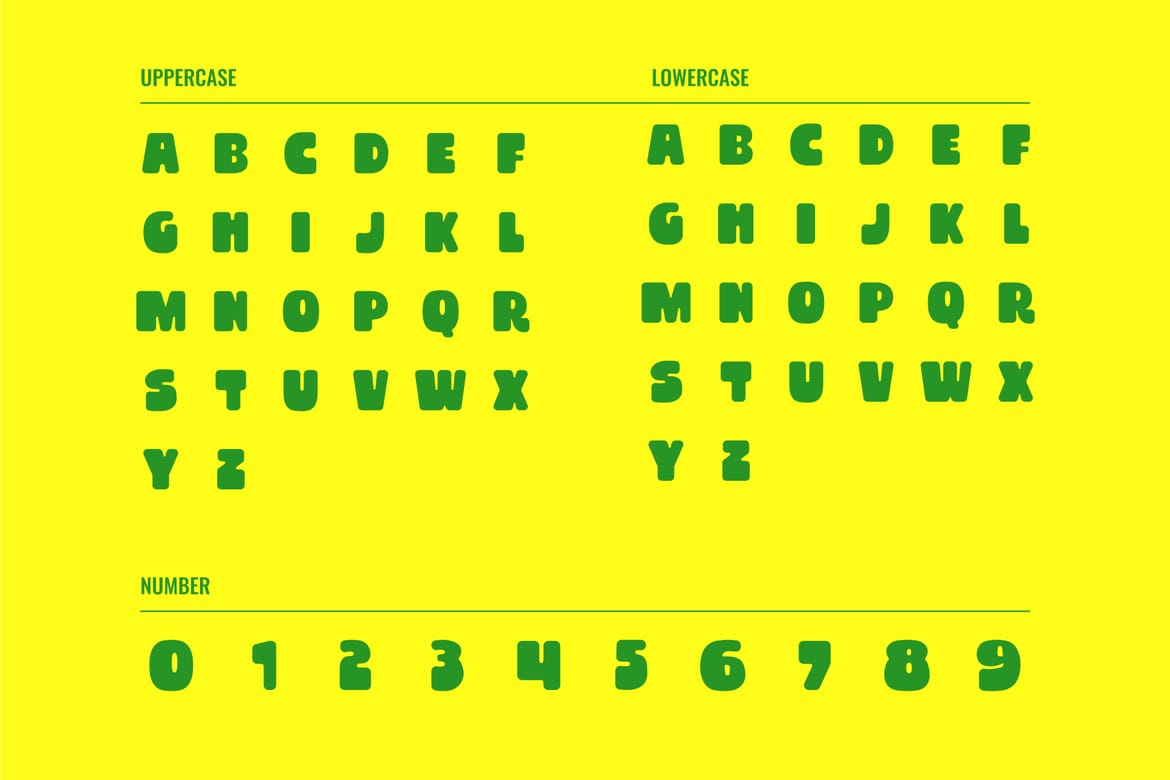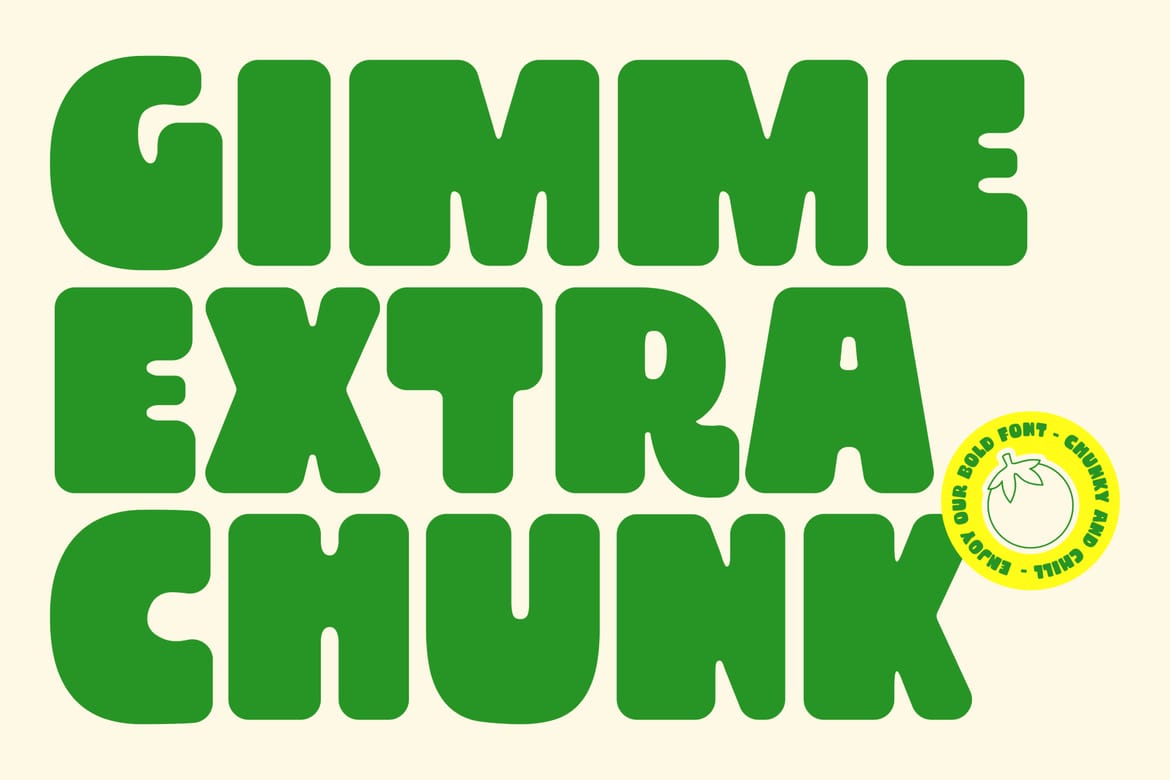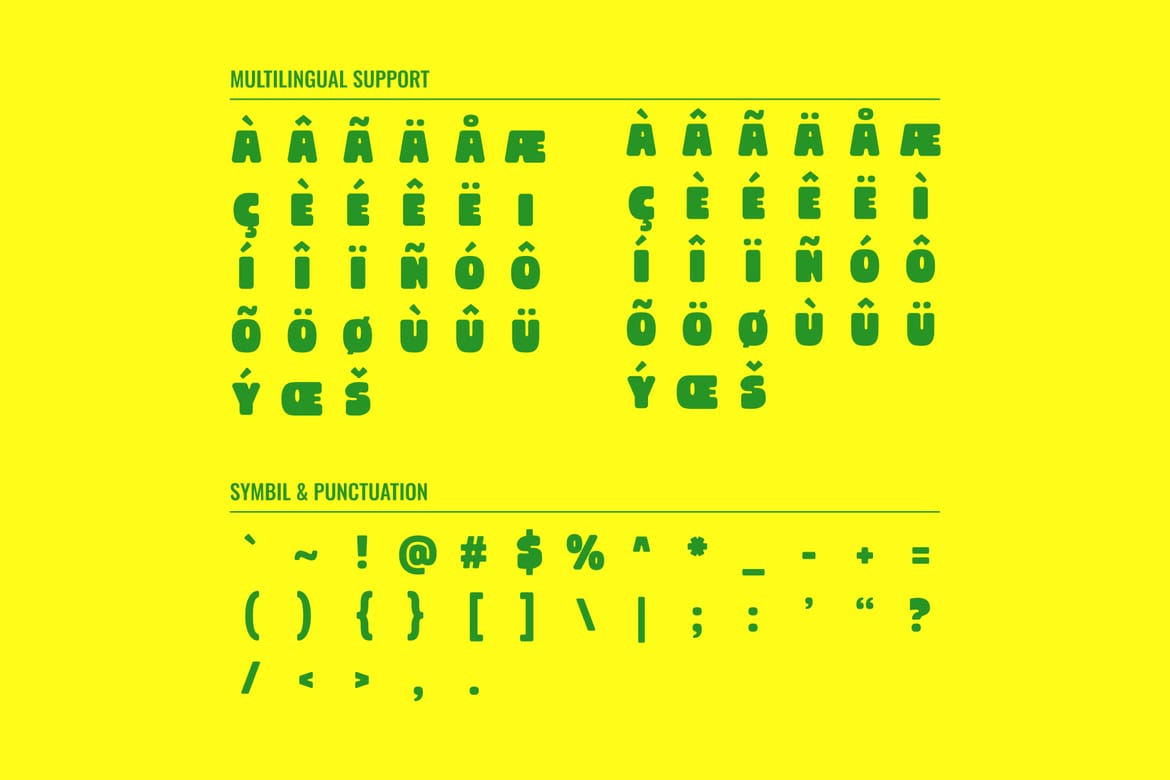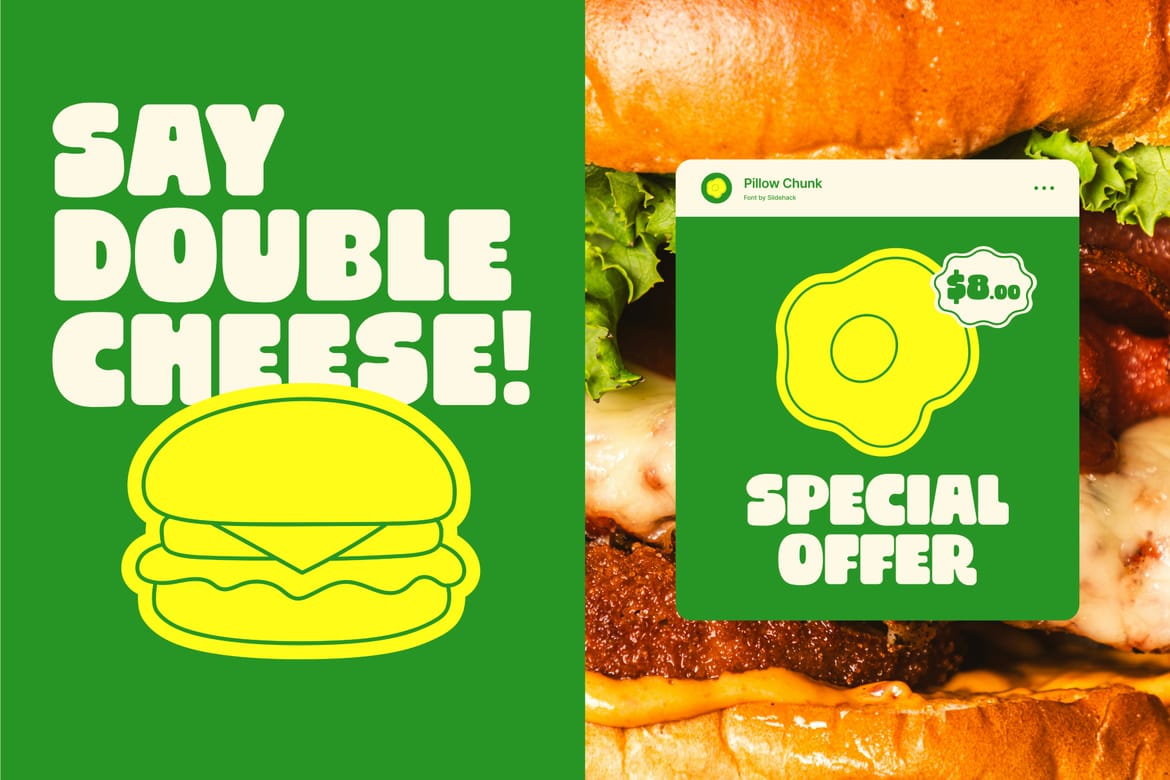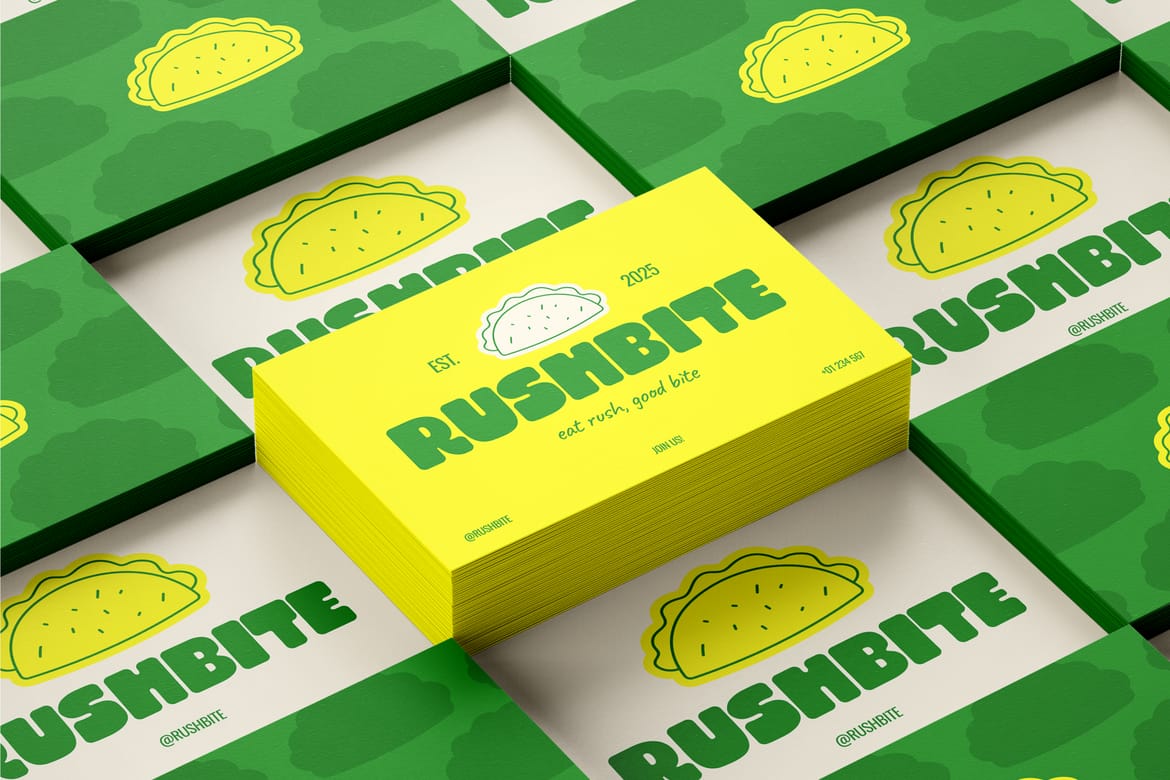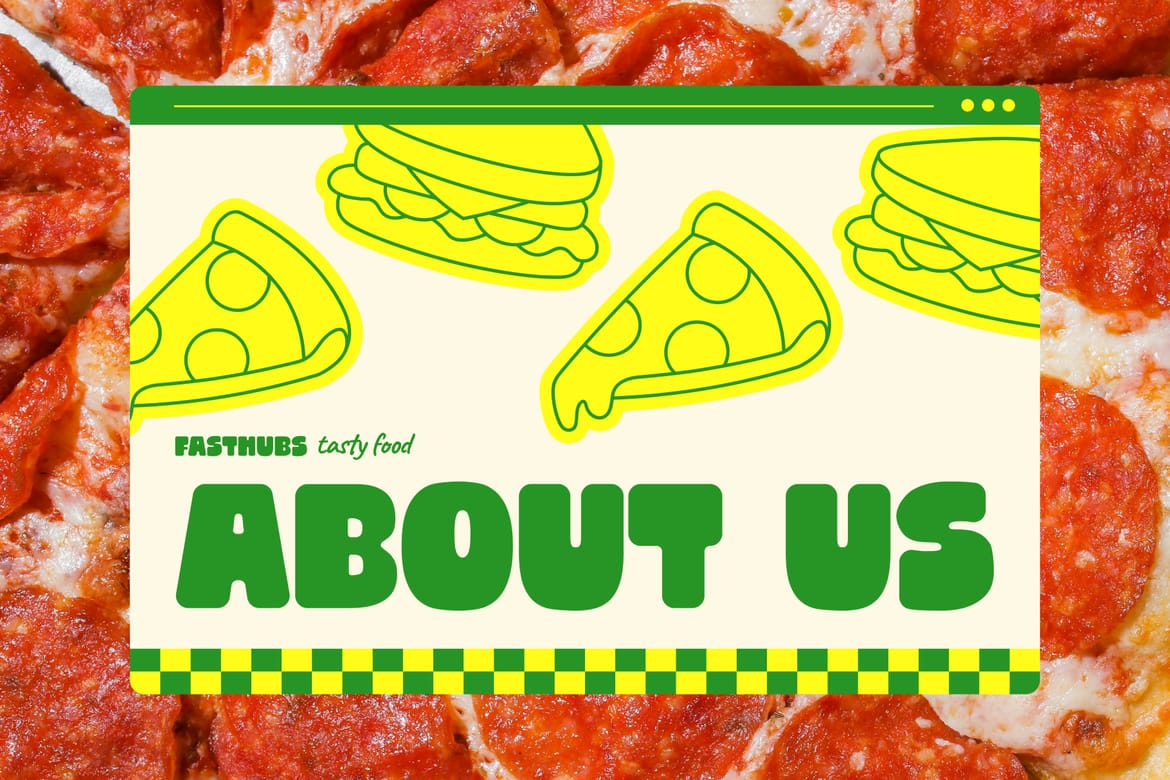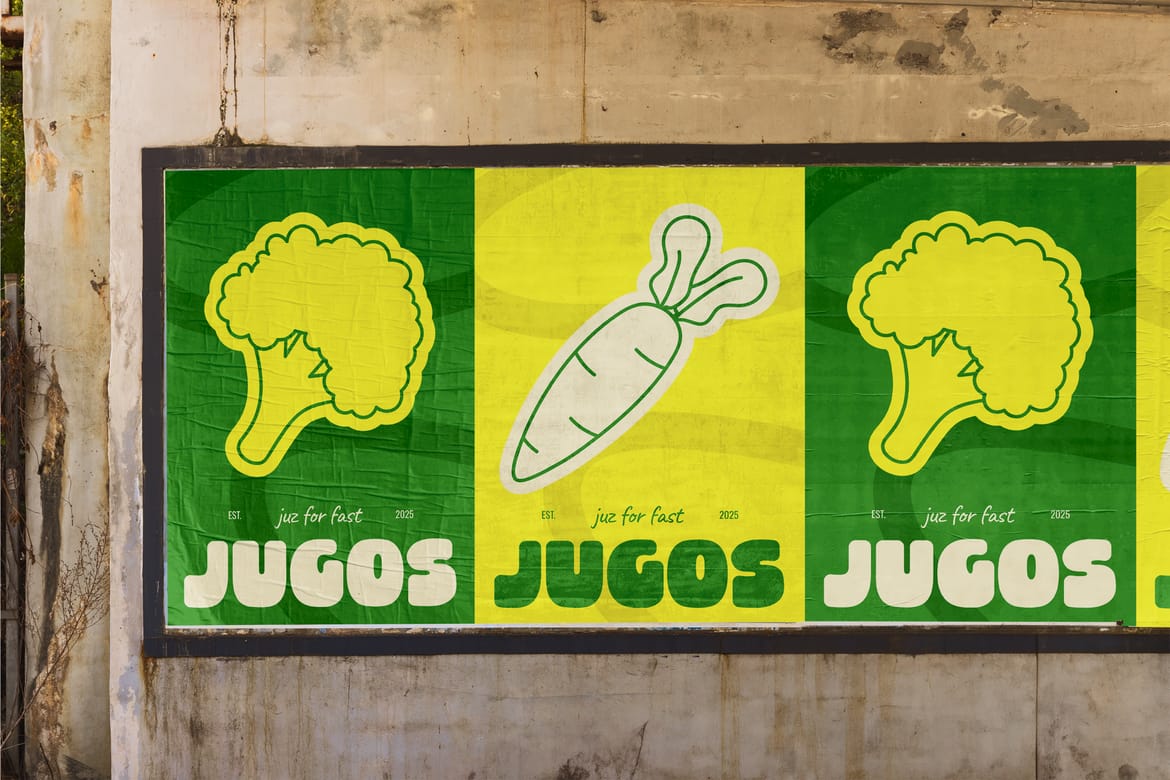
Pillow Chunk – Display Font is a bold, chunky, and playful typeface perfect for eye-catching designs. Ideal for posters, packaging, kids’ projects, branding, and social media graphics, its rounded curves and fun character bring a vibrant, retro-inspired style that instantly grabs attention and makes your design stand out.
Ultra-bold chunky display style
Heavy rounded shapes with a loud playful presence that instantly stands out